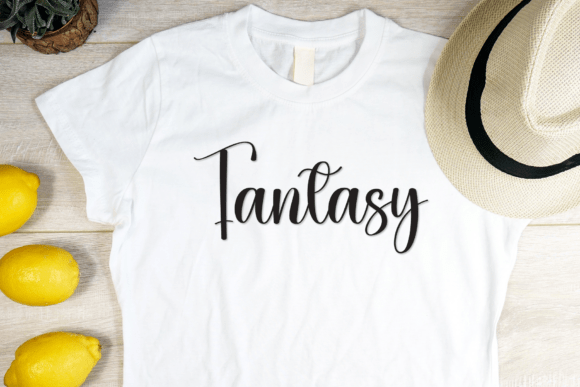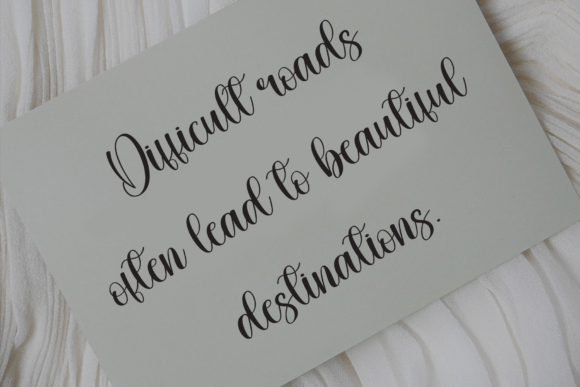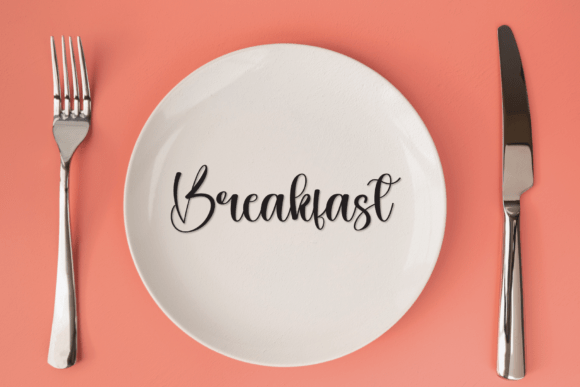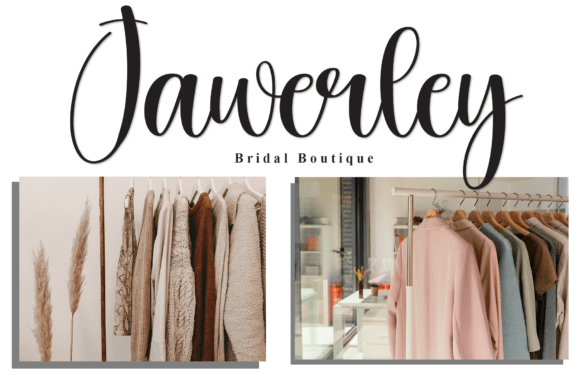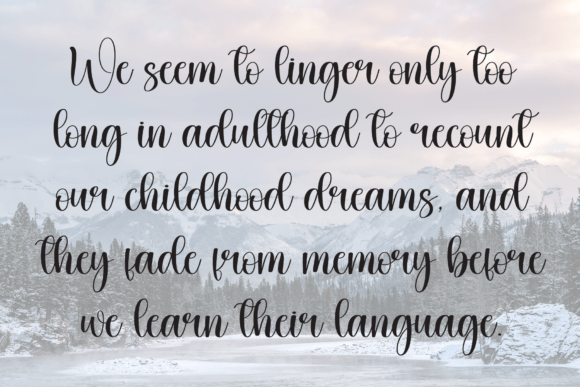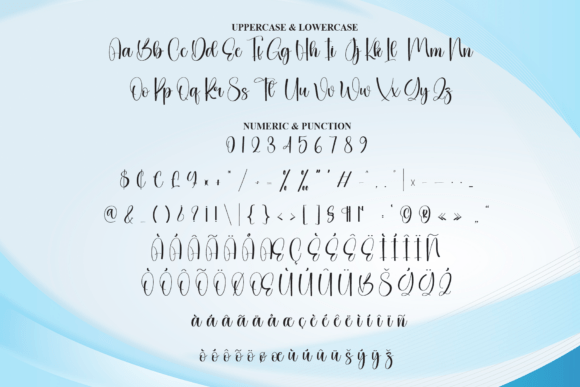
Introducing Authentic Font: Elevate Your Designs with Unique and Creative Style
Are you tired of using the same old fonts in your designs? Do you want to add a touch of personality and creativity to your projects? Look no further than Authentic Font, the latest and most stylish font that will take your designs to the next level. Our font is designed to provide you with an extraordinary experience, perfect for a wide range of applications, from wall displays and wedding invitations to social media posts and product packaging.
What Sets Authentic Font Apart
Authentic Font is not just another font – it’s a game-changer. Our font is carefully crafted to provide a unique and distinctive look that will make your designs stand out from the crowd. With its elegant and tasteful handwriting style, Authentic Font is perfect for designers and crafters who want to add a personal touch to their projects.
Endless Possibilities with Authentic Font
Our font is incredibly versatile and can be used for a wide range of applications, including:
- Wall displays and signage
- Social media post logos and graphics
- Advertisements and marketing materials
- Product packaging and labeling
- Product designs and branding
- Photography and watermarks
- Invitations and event materials
- Stationery and paper goods
- Unique and creative designs that will set you apart
- Elegant and tasteful handwriting style
- Endless possibilities for use in various applications
Authentic Font is perfect for designers and crafters who want to add a personal touch to their projects. Whether you’re a professional designer or a DIY crafter, our font is easy to use and provides a unique and creative look that will elevate your designs.
In conclusion, Authentic Font is the perfect choice for designers and crafters who want to add a touch of personality and creativity to their projects. With its elegant and tasteful handwriting style, endless possibilities for use, and easy installation and use, our font is sure to become a favorite in your design arsenal. So why wait? Get Authentic Font today and start elevating your designs to new heights!